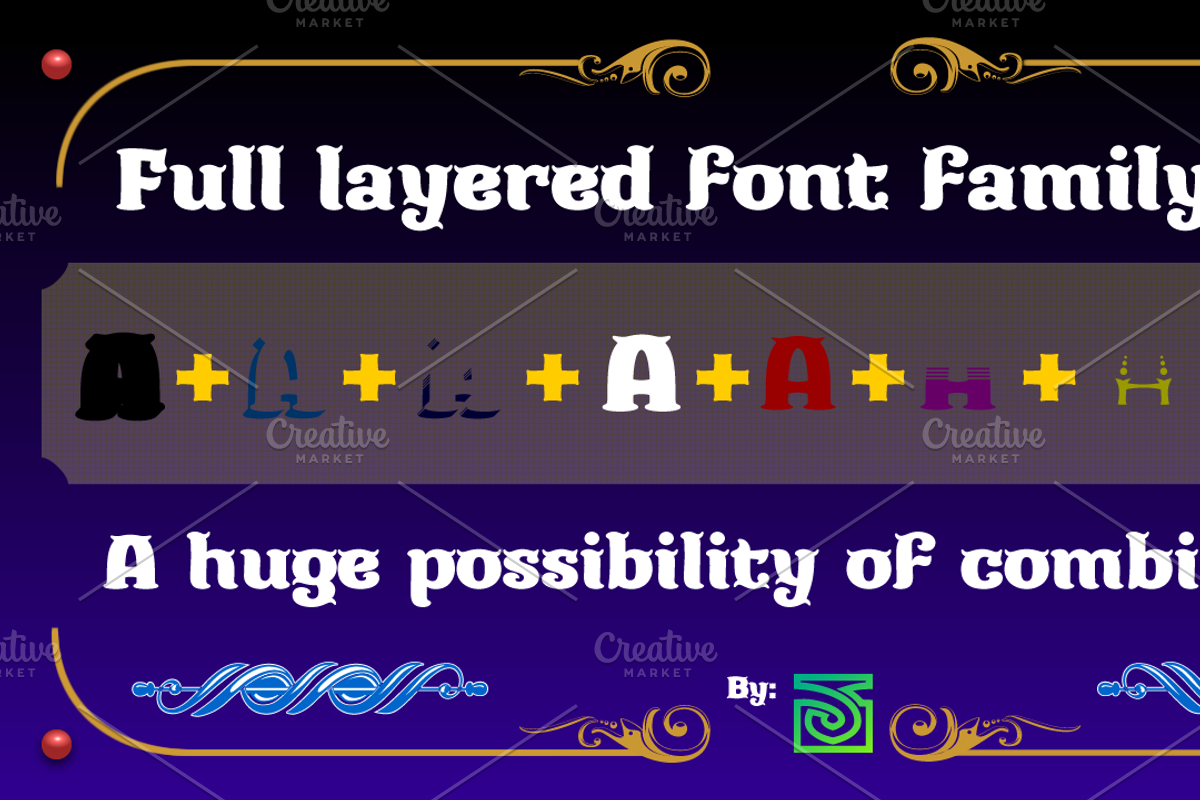
Caminito - Font family
Caminito - Font family by JVB Digital Foundry is a font selected for branding, posters, packaging, typography.
- Caminito Base
- Caminito Figura Alta
- Caminito Figura Baja
- Caminito Figura Borlas
- Caminito Figura Fileteado
- Caminito Filete Interno
- Caminito Filete Interno Sombra Interna
- Caminito Fondo
- Caminito Profundidad
- Caminito Profundidad Piso
Caminito - Font family by JVB Digital Foundry fits naturally into Branding, posters, packaging, typography.